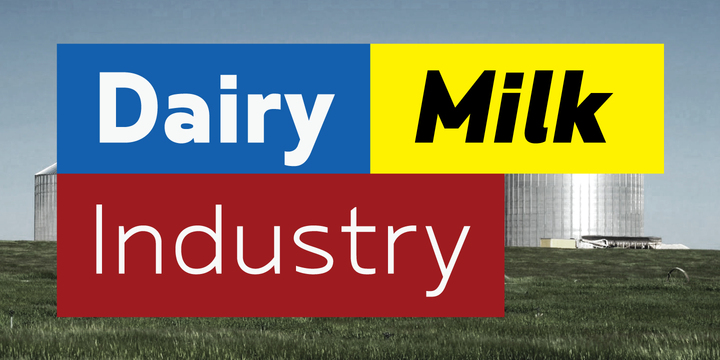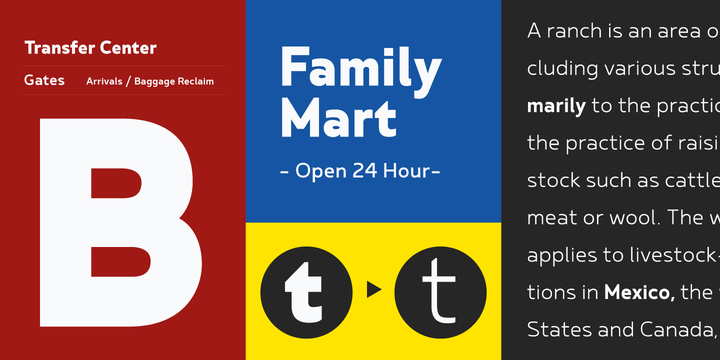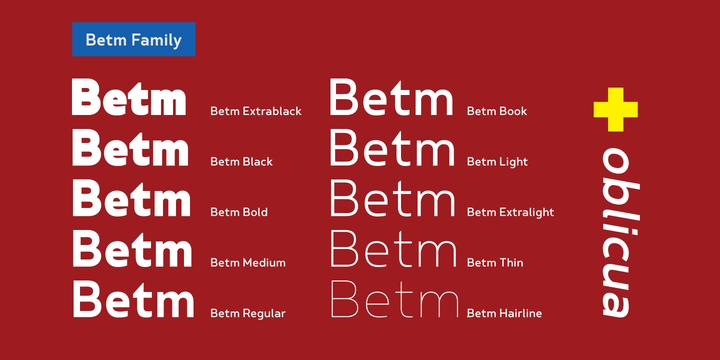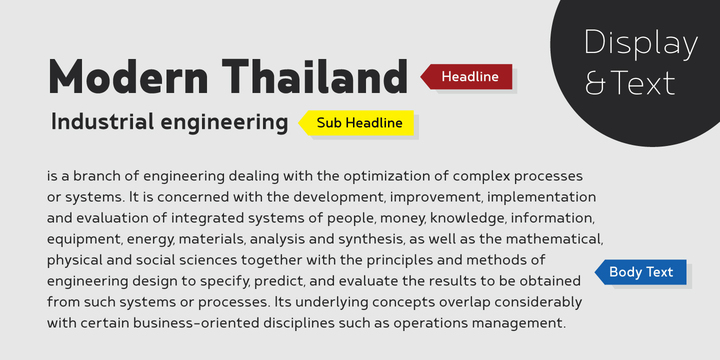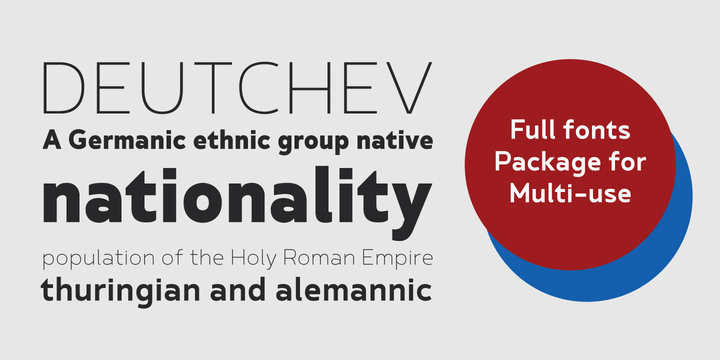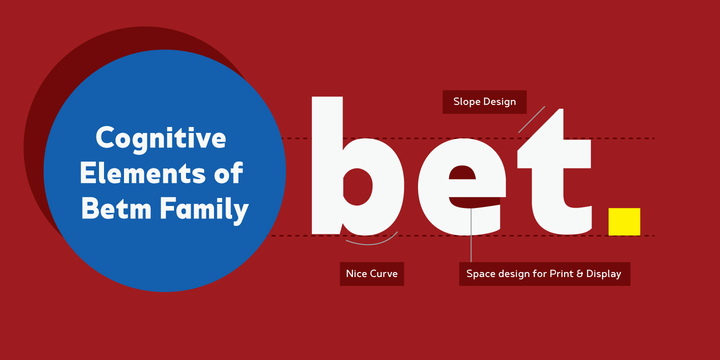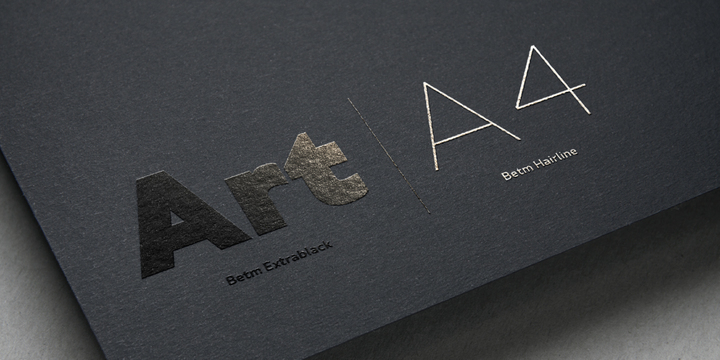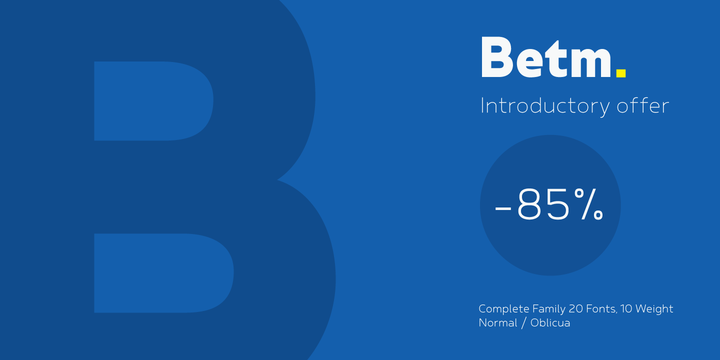
Betm Font Family
Betm Font Family – 20 Fonts
Designed by Typesketchbook, Betm is a simple sans-serif font that comes with 10 weights, along with 10 italic options to match.
Designers: Chatnarong Jingsuphatada